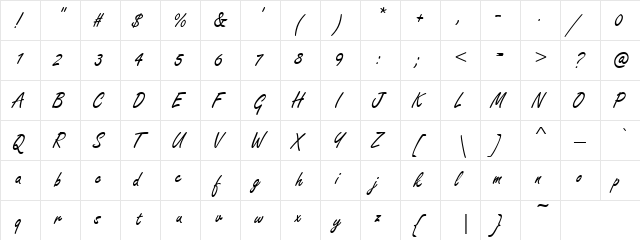
Runner Teas Regular
Design Context for Runner Teas Typeface
Runner Teas takes a measured approach to typography — its balanced proportions and neutral character make it a reliable workhorse for both digital and print work.